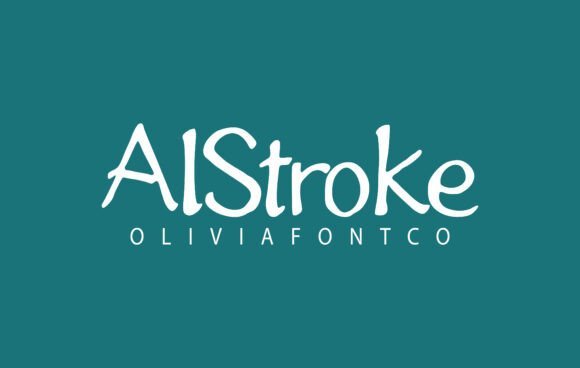
Introduction to Aistroke Font
AIStroke font is an authentic handwritten font with a romantic touch.
Key Features of Aistroke Font
Why Choose Aistroke Font?
Aistroke Font offers exceptional quality and versatility, making it a valuable addition to your design toolkit. Whether you’re creating for personal projects or commercial use, Aistroke Font delivers professional results.